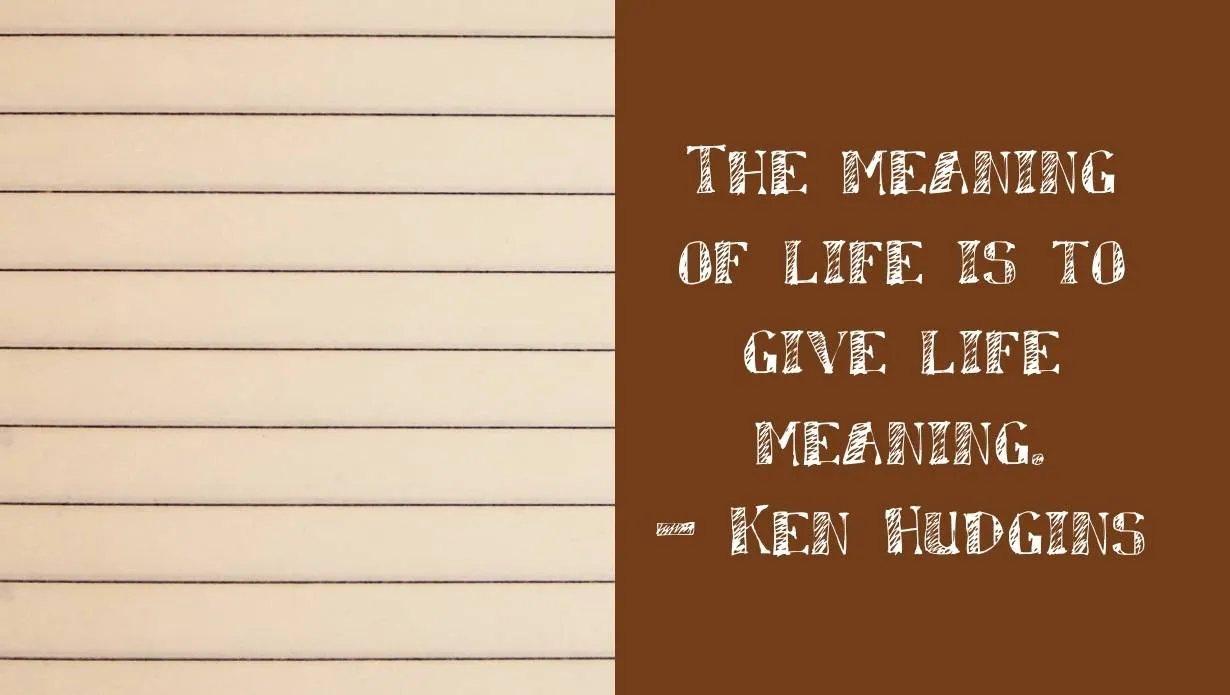
Sketchy Font is manufactured by Nirvana Visual in skiiller Studio. It belongs to the Handwritten font. The characteristic of this Font is that the letters are not joined and the end of each letter is slightly curved. This font is perfect for creative designs and it gives a natural feeling to your text. It is best for CSS.
This tremendous has 107 modern and unique Glyphs and also supports Central European Characters. This Font is perfect for headlines, labels, logos, and much more.
Sketchy Font Family
| Name | Sketchy Font |
| Designer | Nirvana Visual |
Its popular Characters are Upper and Lowercase letters, numbers, punctuation, and symbols. Its copy and paste are best for different designs. FloraBella Font is similar to this typeface.